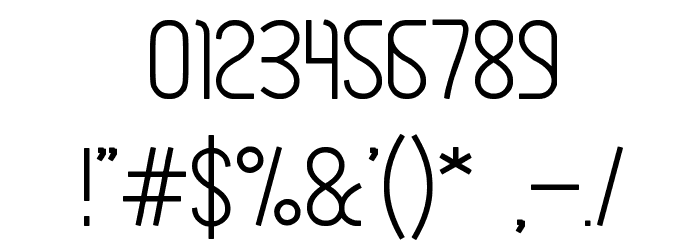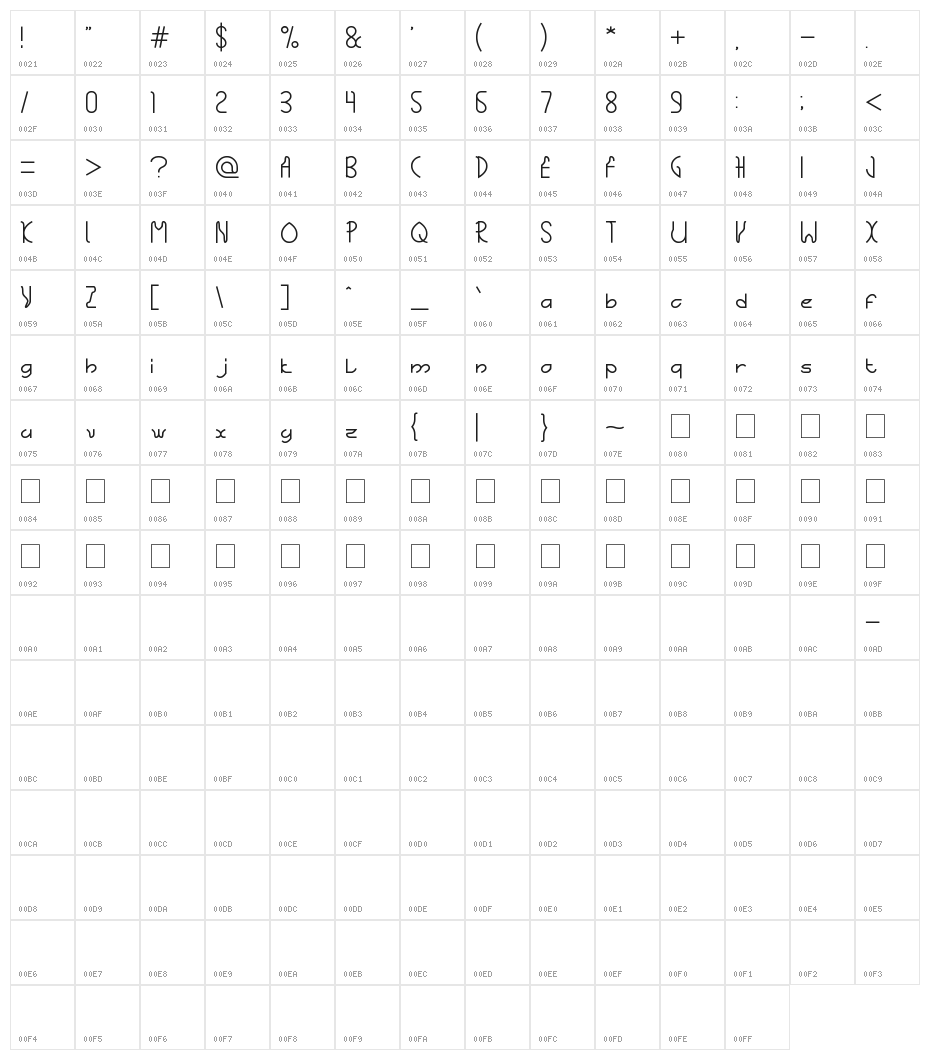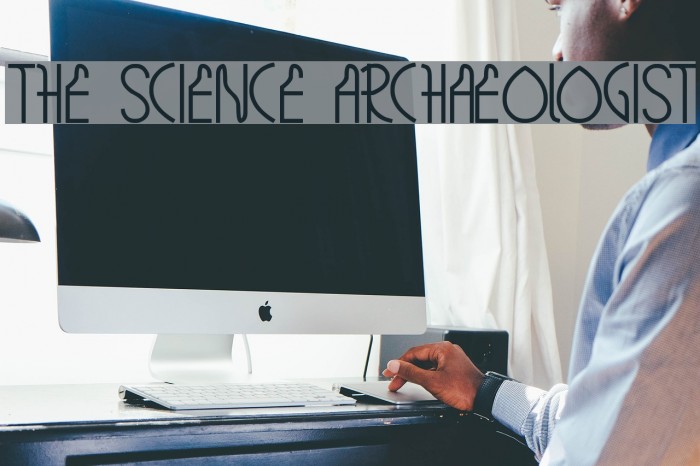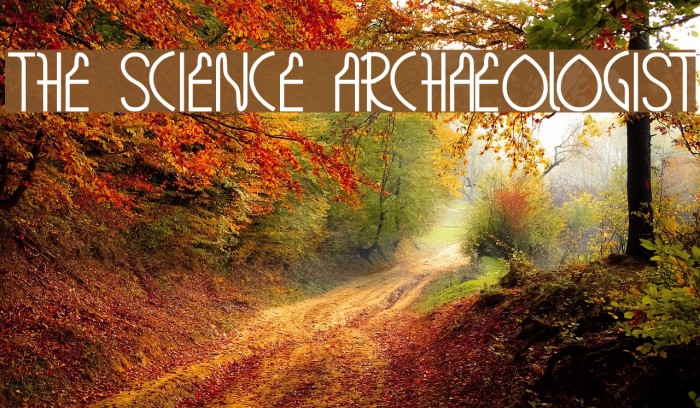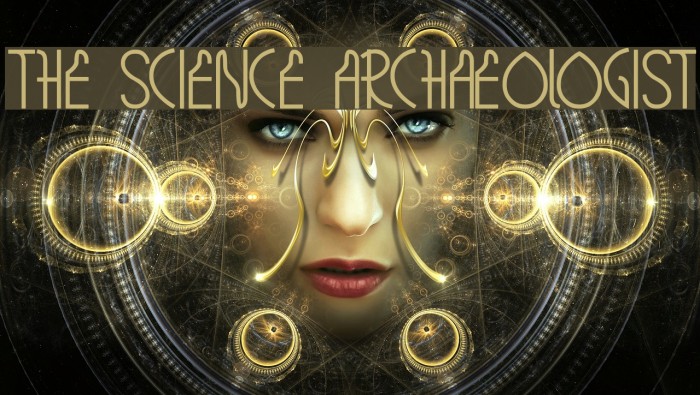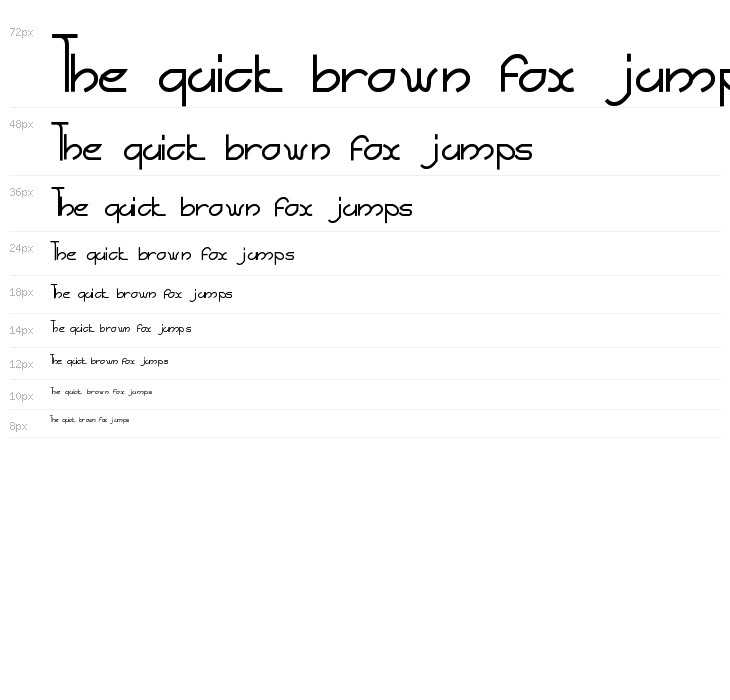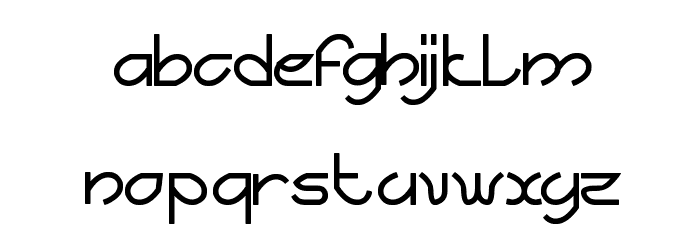
THE SCIENCE ARCHAEOLOGIST Font
THE SCIENCE ARCHAEOLOGIST Description
This font features a unique and futuristic design with geometric elements and a distinct, angular style. The uppercase letters are characterized by sharp angles and clean lines, giving them a modern and technical appearance. The lowercase letters maintain a similar aesthetic, with some characters featuring rounded edges that add a touch of softness to the overall design. The numerals are consistent with the letterforms, offering a cohesive look. Special characters are included, maintaining the same geometric and angular style. This font is ideal for projects that require a modern, tech-inspired look.